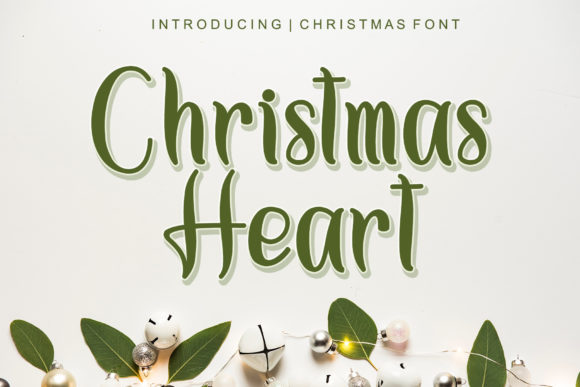
Introducing Christmas Heart Font, a font of remarkable beauty and fluidity. This script font is crafted with finesse, exuding elegance and sophistication. It's as if each letter dances across the page, creating an enchanting visual symphony.
Immerse yourself in the charm of Christmas Heart Font, designed by the talented Letterafa Studio. This font is the perfect choice for creating heartfelt Christmas cards, expressing gratitude with thank you notes, and adding a touch of magic to quotes and greeting cards. Its versatility extends to logos, business cards, and any design that calls for a handwritten touch.
With Christmas Heart Font, you have the power to transform ordinary designs into extraordinary masterpieces. Its varying baseline, smooth lines, and gorgeous glyphs create a visually captivating effect that commands attention. Experiment with stunning alternates to add a unique flair to your projects and let your creativity shine.
Elevate your designs to new heights with Christmas Heart Font. Whether you're a seasoned designer or just starting out, this font will elevate your work with its timeless beauty and endless possibilities. Its enchanting style is sure to leave a lasting impression on your audience, making your designs truly unforgettable.
Embark on a journey of creativity with Christmas Heart Font. Let your imagination soar and bring your design visions to life. Discover the joy of handwritten elegance and experience the magic of Christmas Heart Font today!